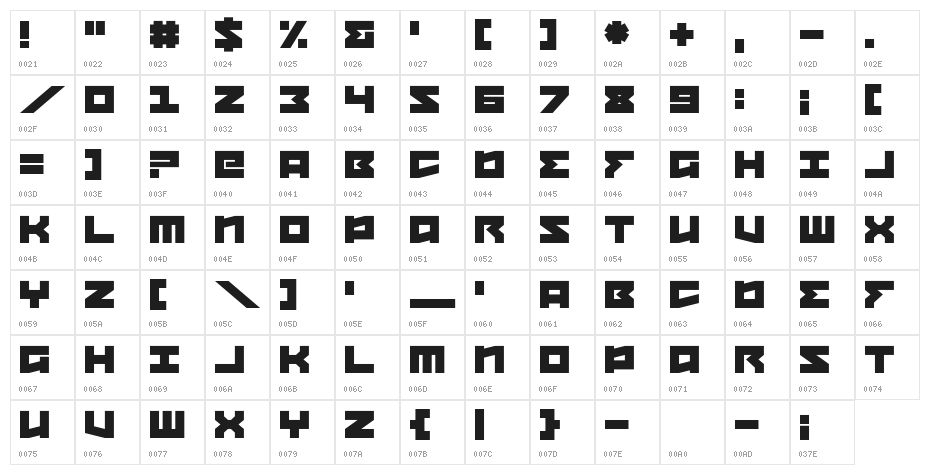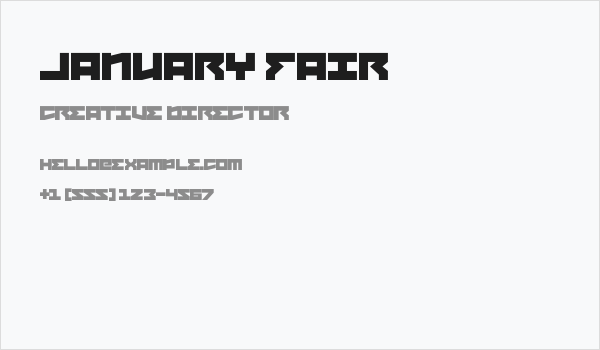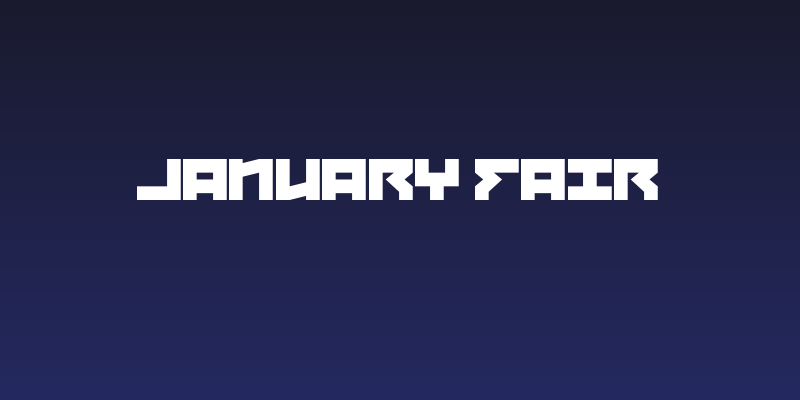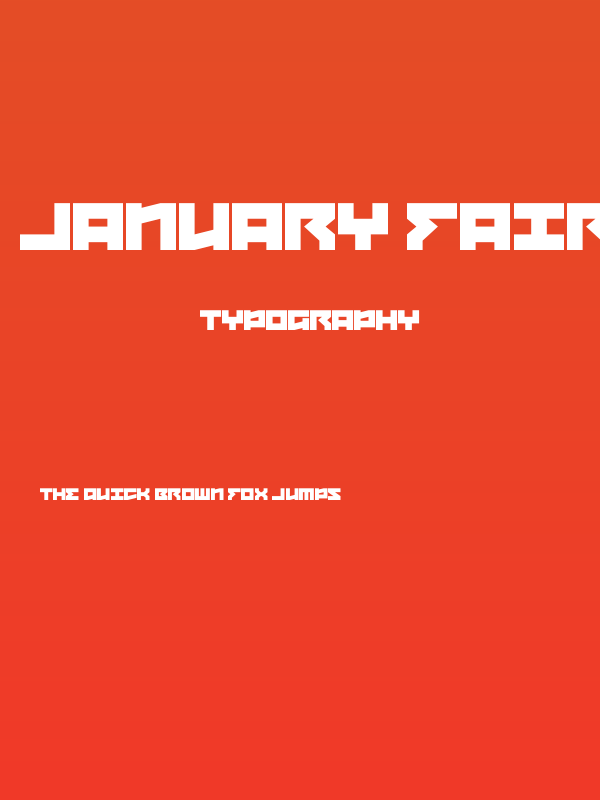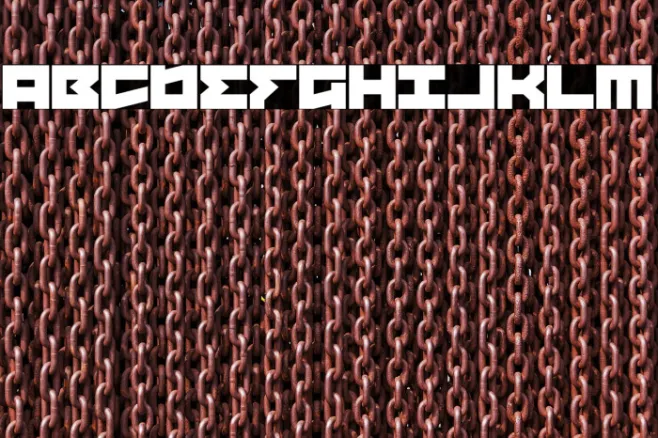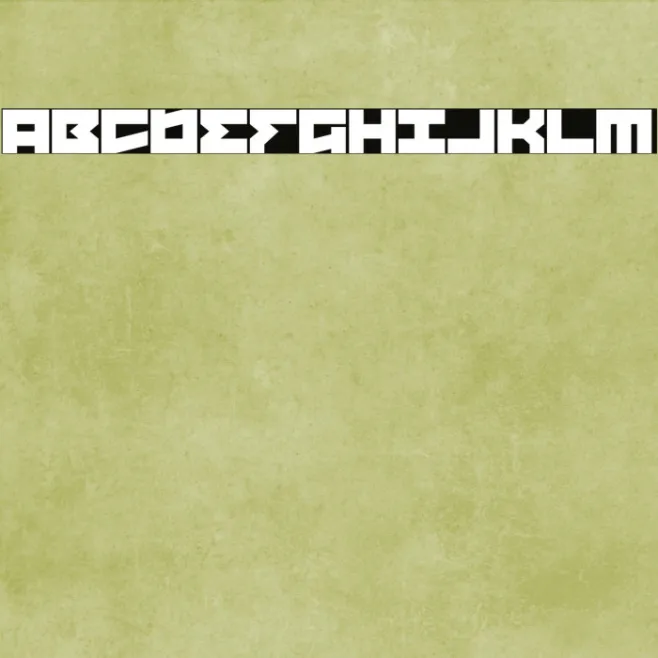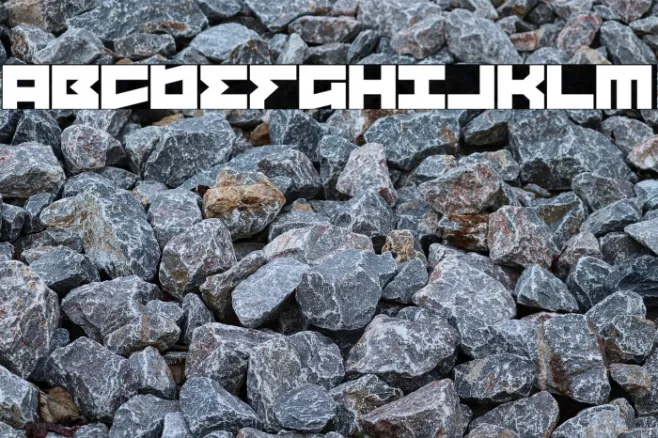
January Fair Font
January Fair Description
This font features a bold, geometric style with sharp angles and a blocky appearance. The characters are uniformly thick, creating a strong and impactful visual presence. The uppercase and lowercase letters maintain a consistent design, emphasizing a futuristic and industrial aesthetic. The numbers and special characters follow the same bold and angular theme, ensuring a cohesive look across all elements. This font's unique style makes it stand out, ideal for projects that require a modern and edgy feel.
| Proposed Projects | Ideal for branding, posters, video game graphics, and any project needing a modern, edgy look. |